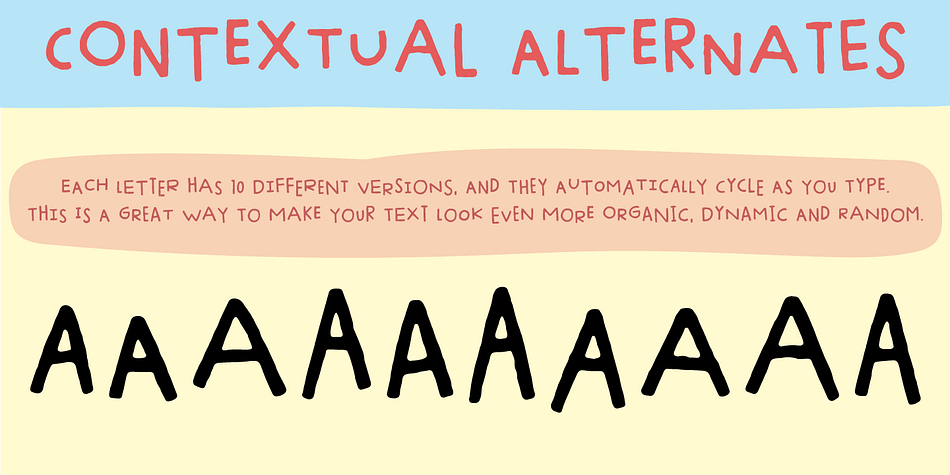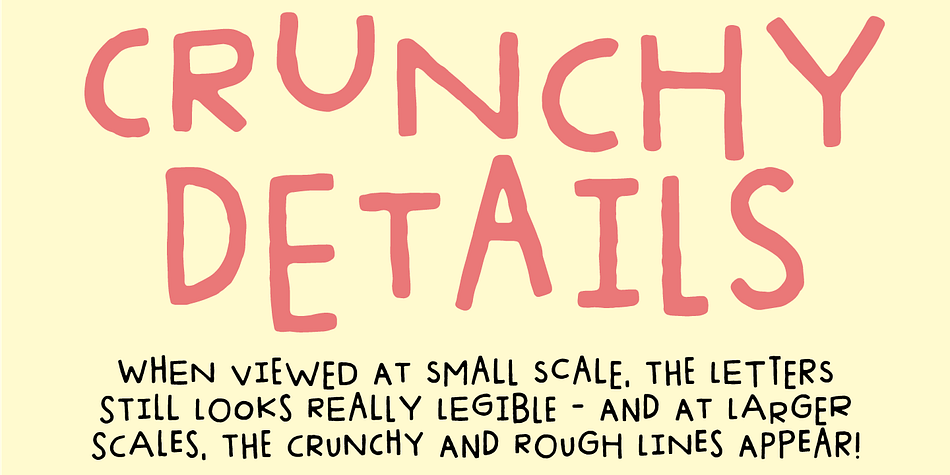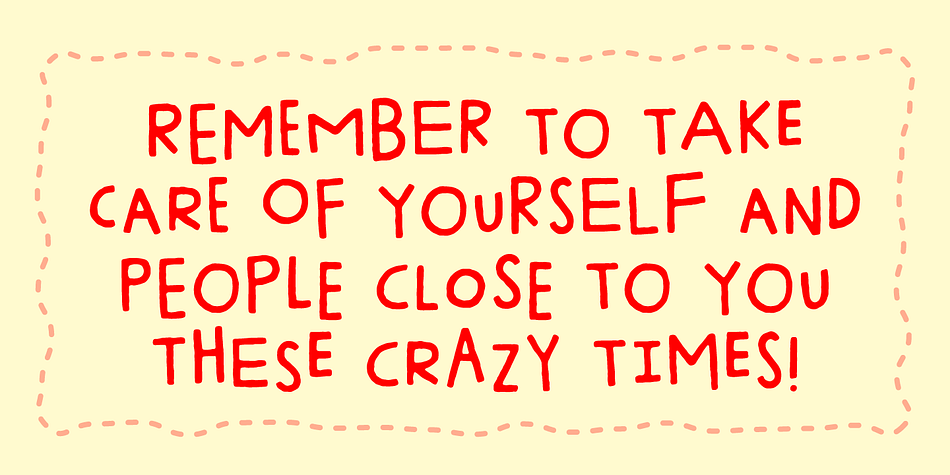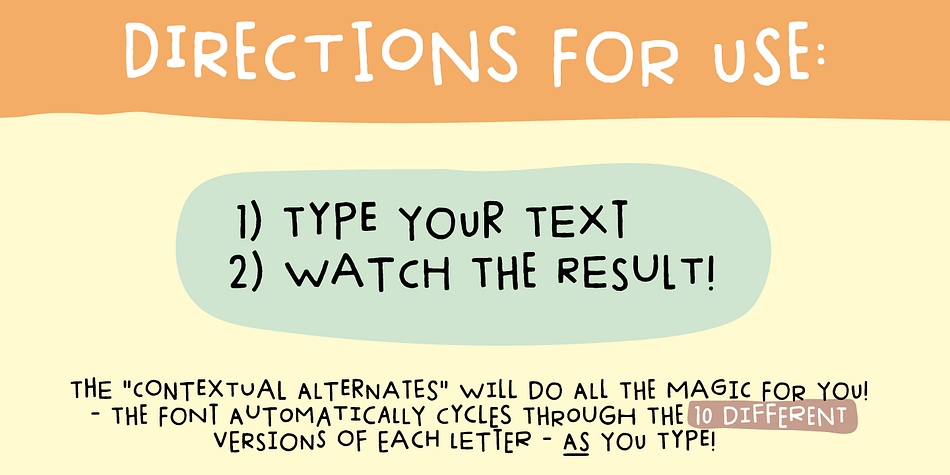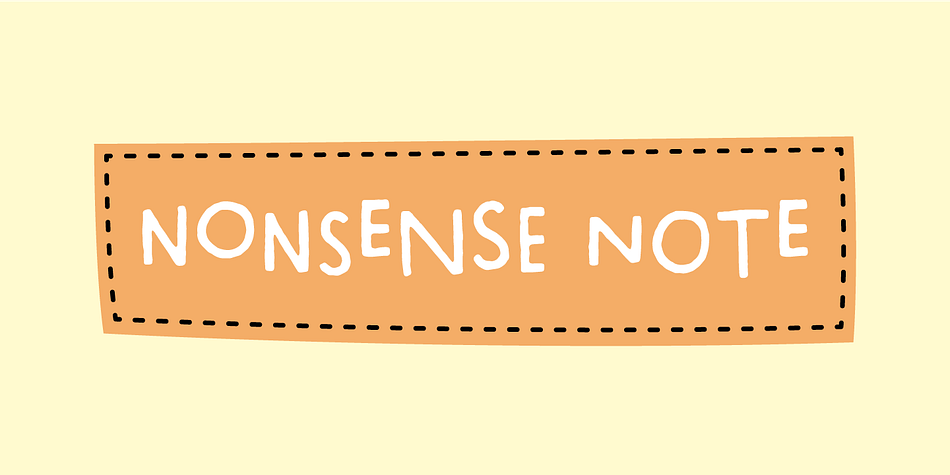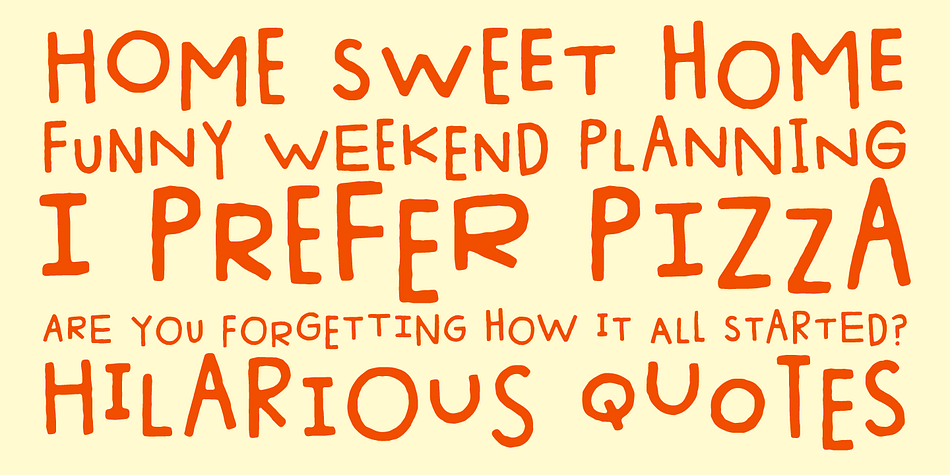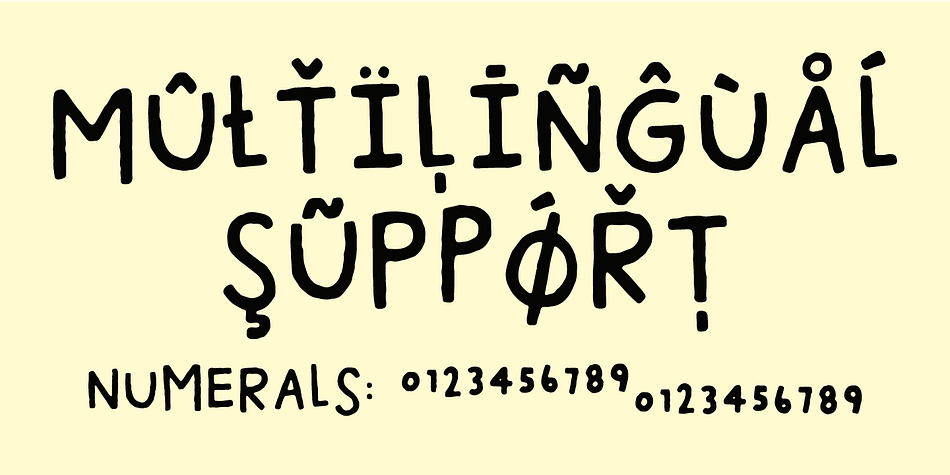
Designed by Jakob Fischer, Nonsense Note is a hand display font published by Bogstav.
There really is no nonsense in this font - but the name comes from my original sketches, where I drew a lot of nonsense! Actually, I couldn’t figure out what letters to use from the sketches, so I picked them all!!!
That’s why each letter has 10 different versions! And what is cool is that they automatically cycles as you type. All you have to do is turn on Contextual Alternates, and the rest is magic!